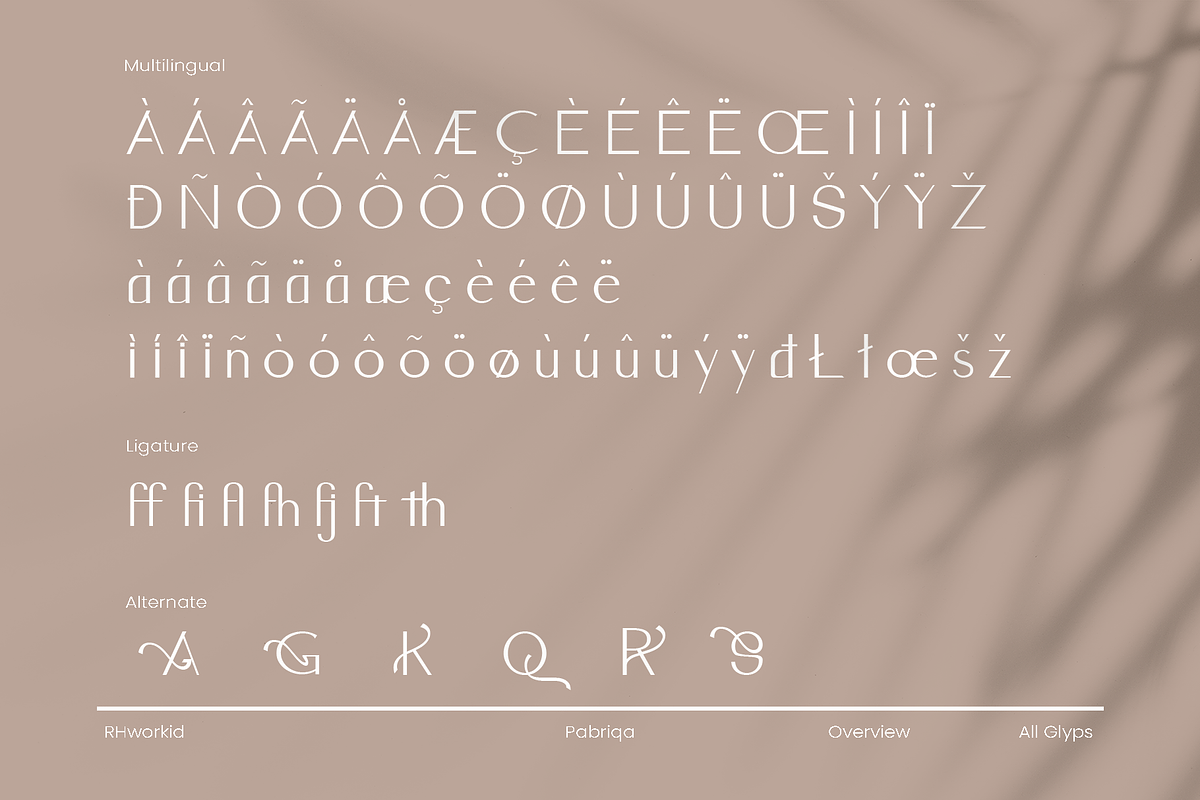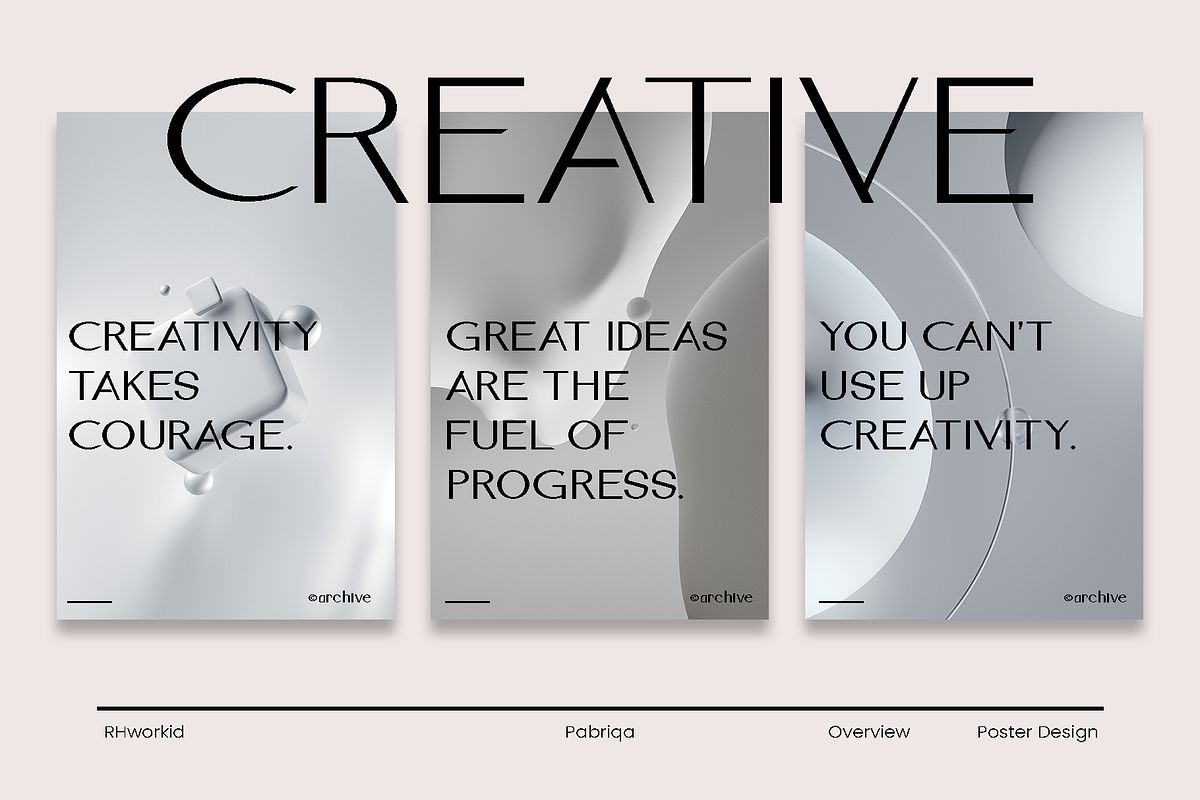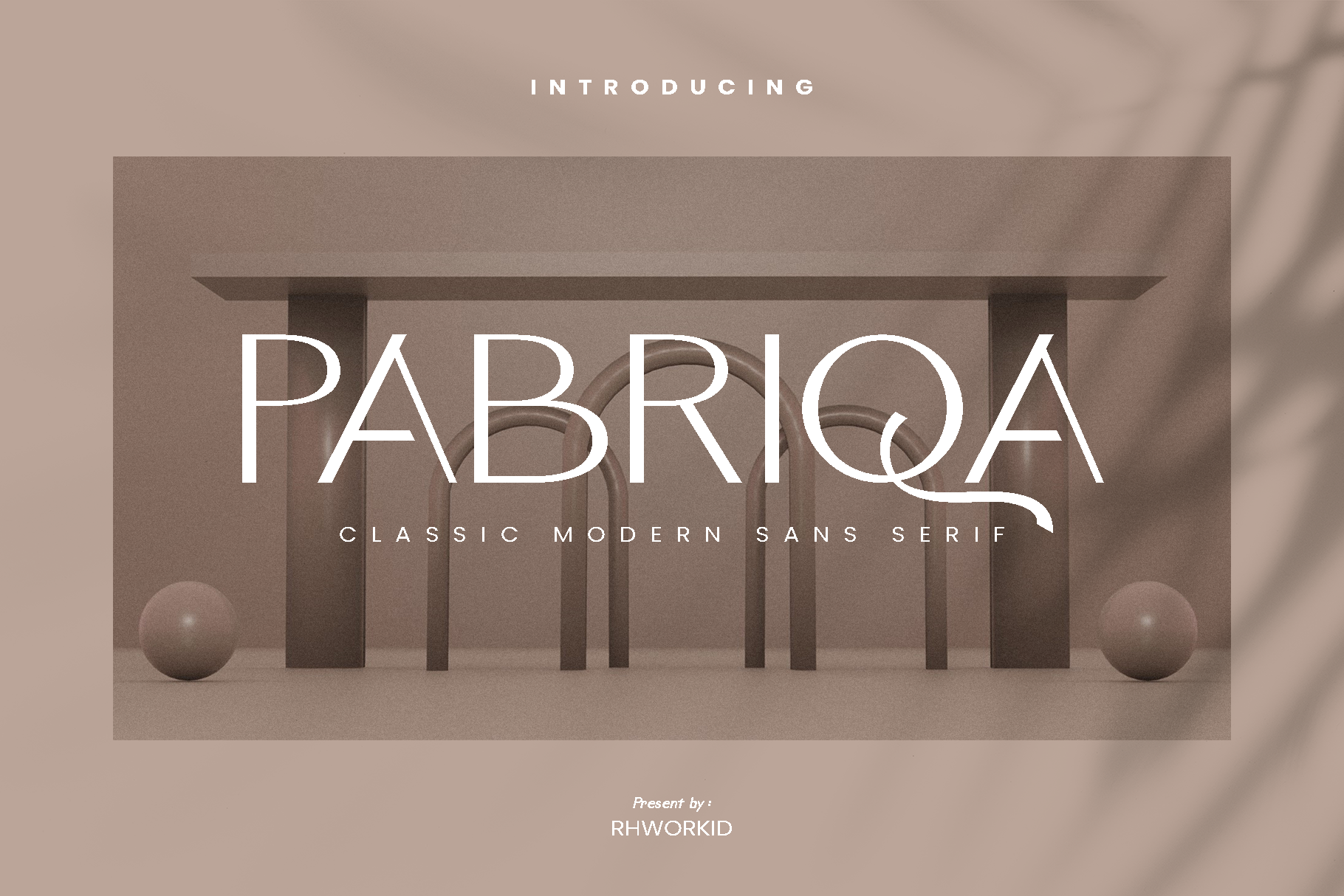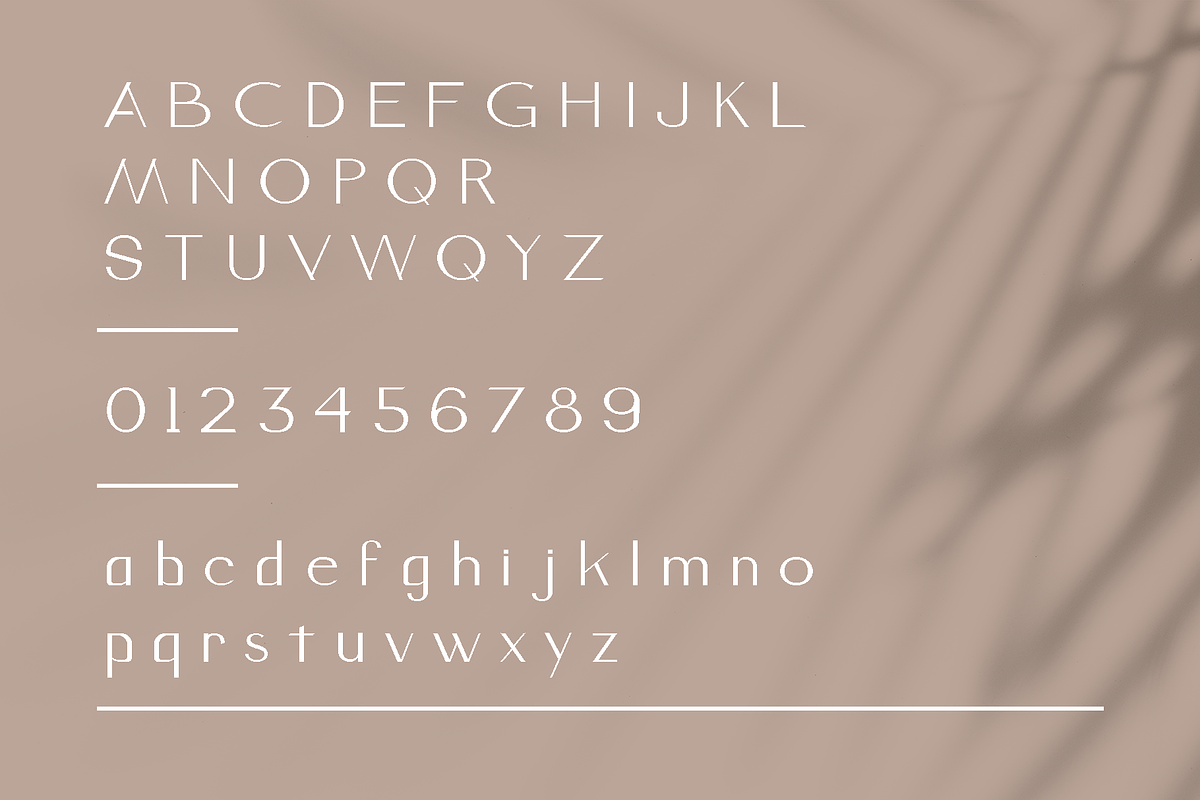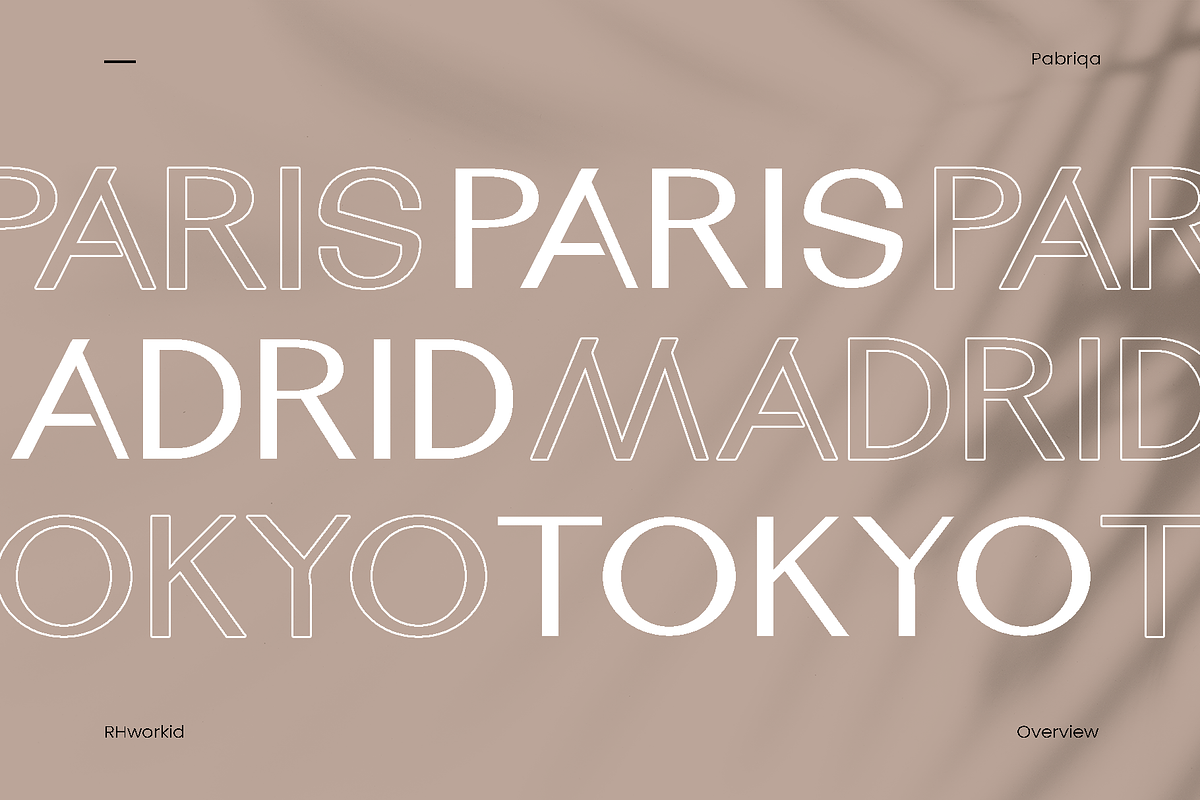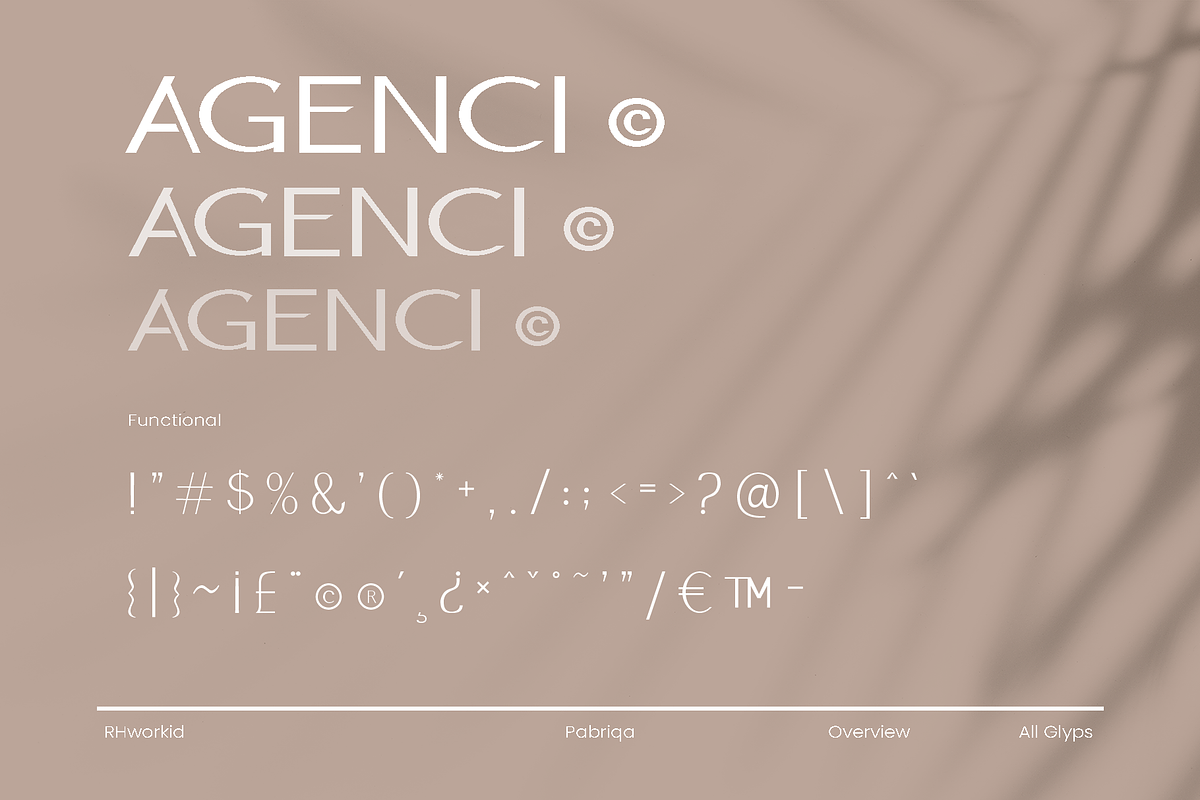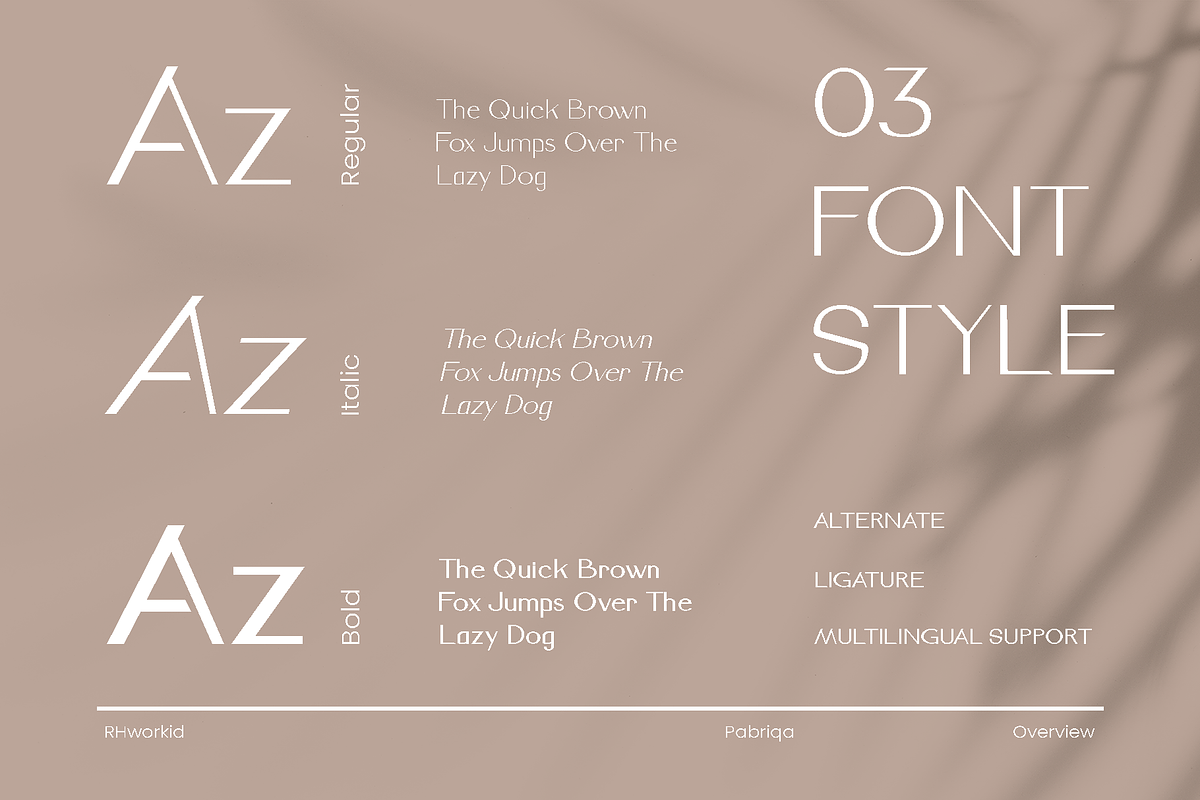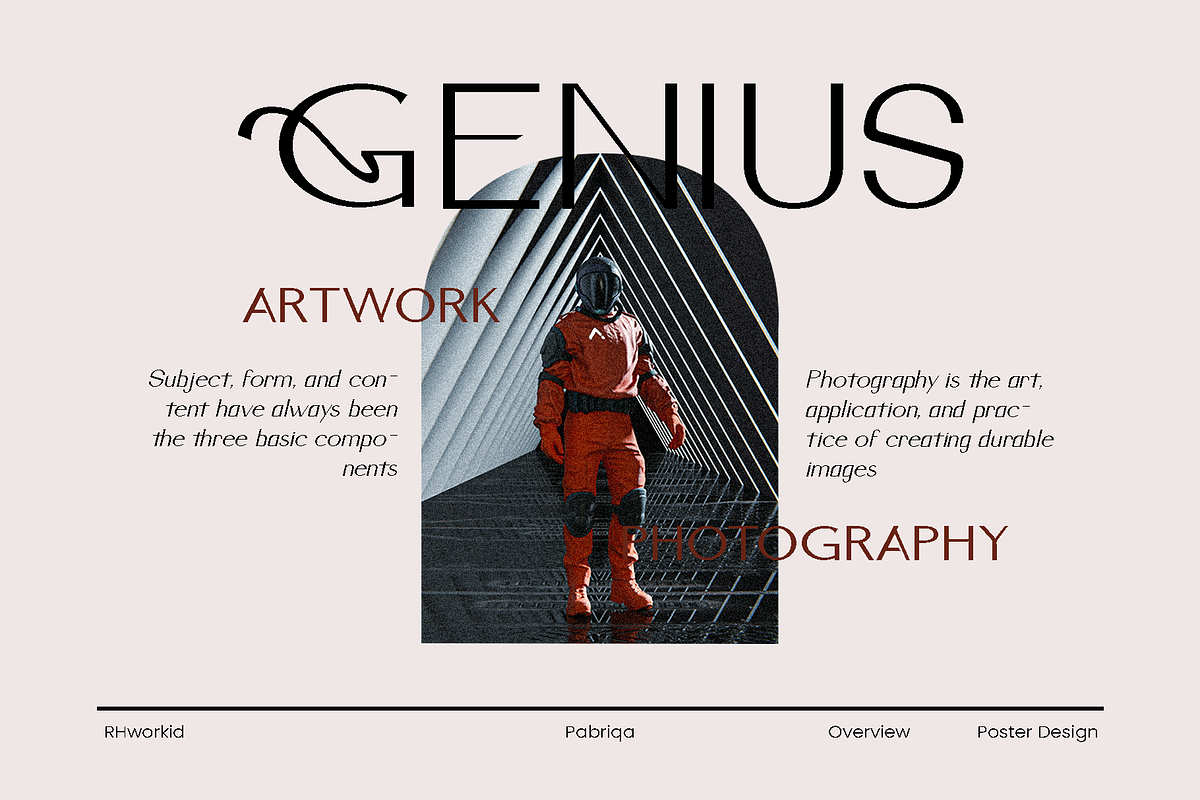
Pabriqa Font
PABRIQA - CLASSIC MODER SANS SERIF
font gives a modern classic and unique with narrow smooth curves and beautiful ligatures, many special alternative glyphs, ornaments, and multilingual support. This is a very versatile font that works great in both large and small sizes. Pabriqa is perfect for branding, Logo design, Apparel Branding, product packaging, magazine headers, or just as a stylish text display for any background.
Feature:
-Numbering and Punctuation. -Multilingual Support. -Ligature. -Alternate.